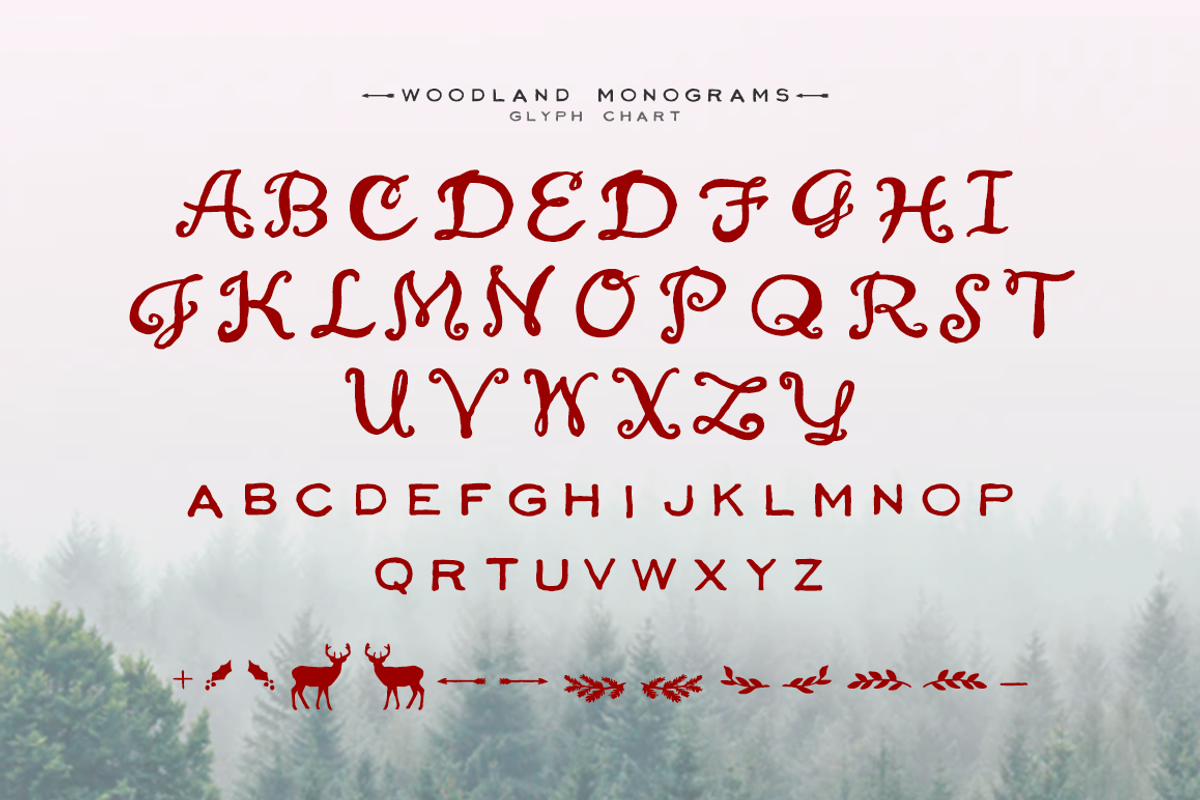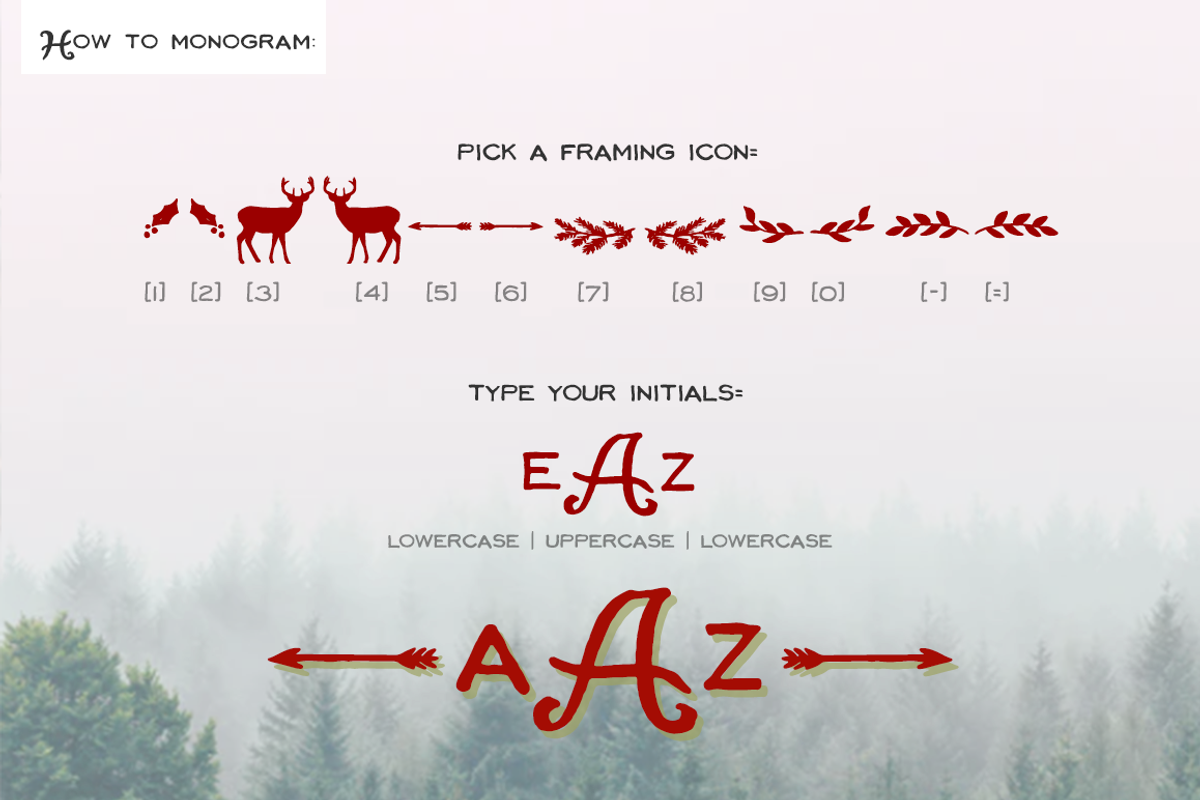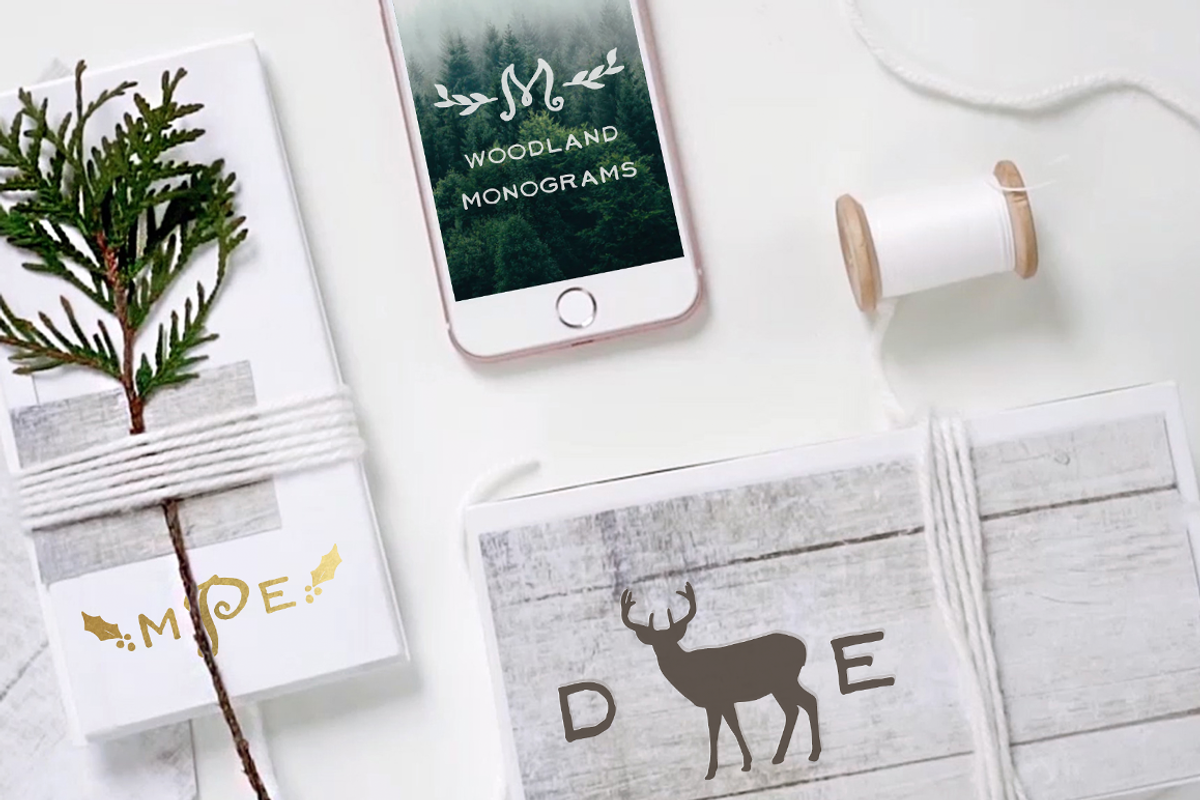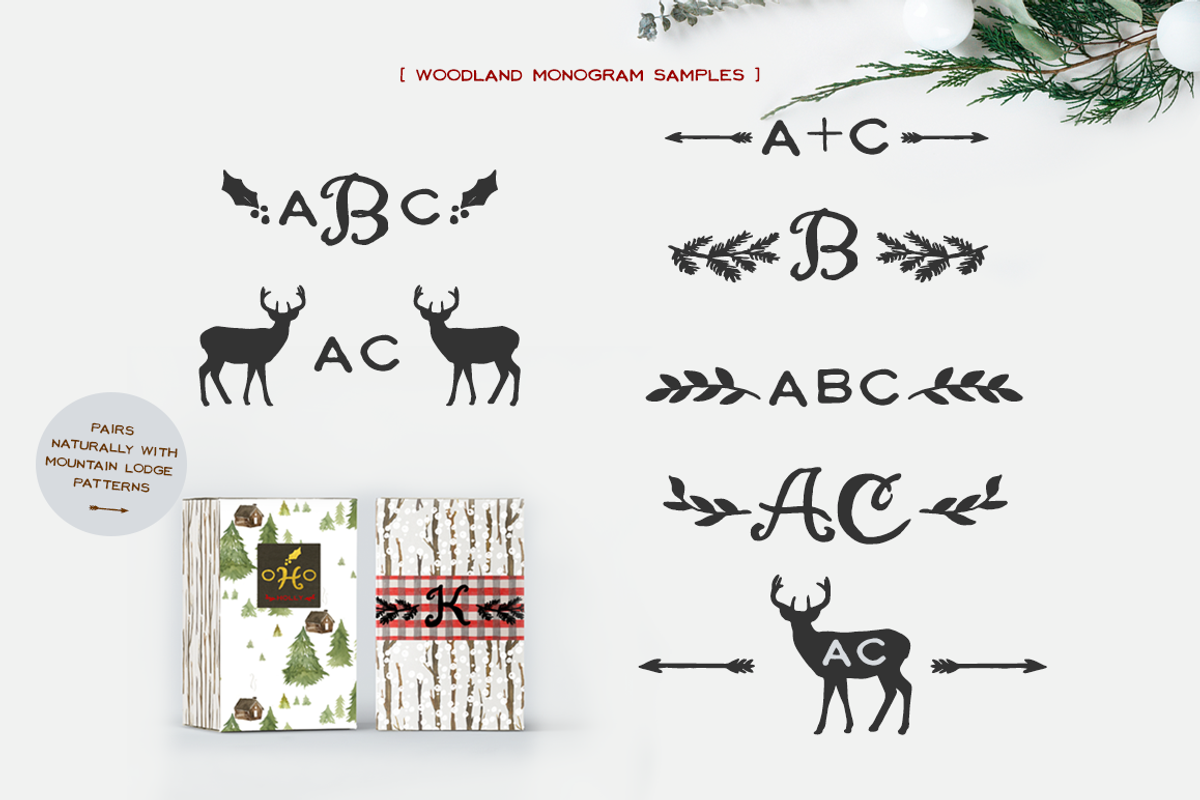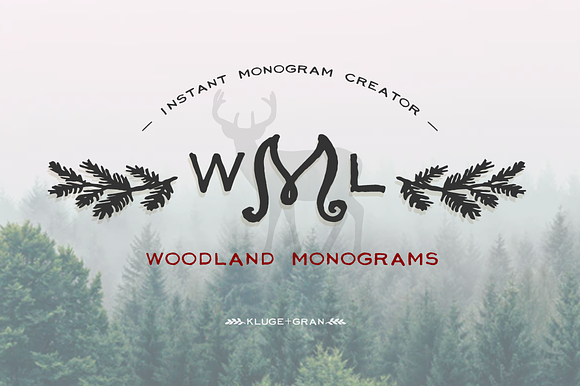
Woodland Monograms Font
Easily create monograms with this rustic font. Designed to work as easy as ABC 123. Includes handpainted cursive uppercase initials and handdrawn san serif initials plus framing icons.
Note: As this is a monogram font, it is spaced to suit monogramming and does not include punctuation or numbers. If you would like a text font version please view Woodland Holiday:
- Note: As this is a monogram font, it is spaced to suit monogramming and does not include punctuation or numbers.
Woodland Monograms Font by KLUGE+CO fits naturally into Branding, posters, packaging, typography.